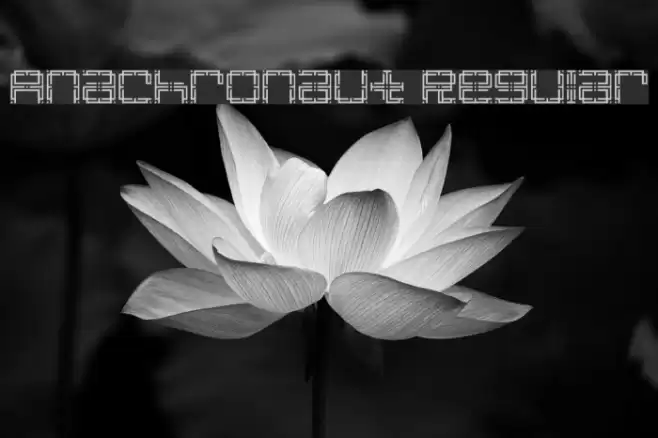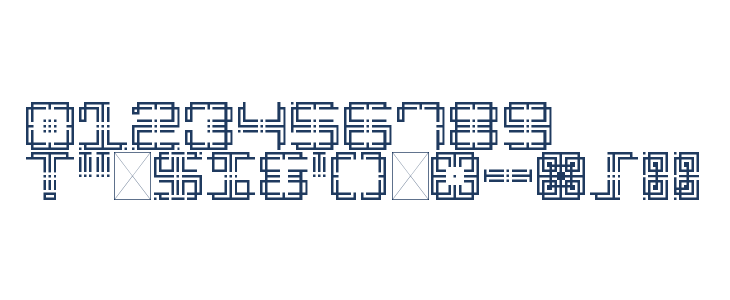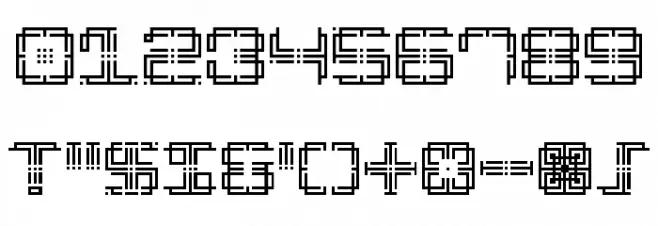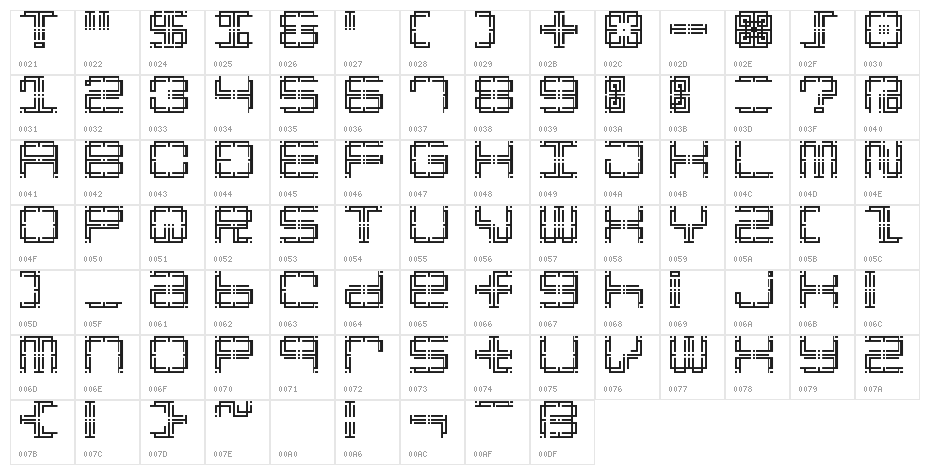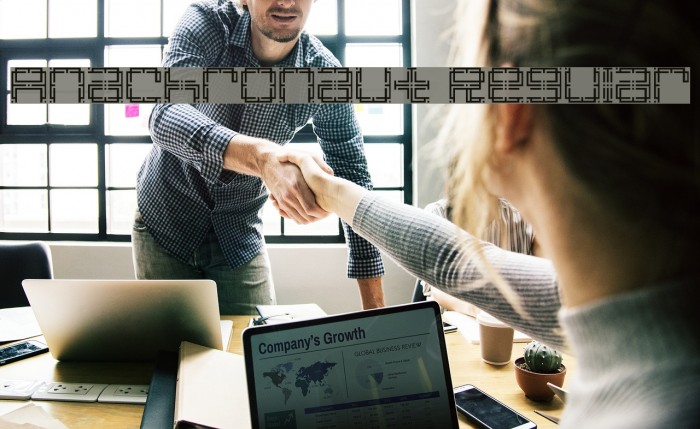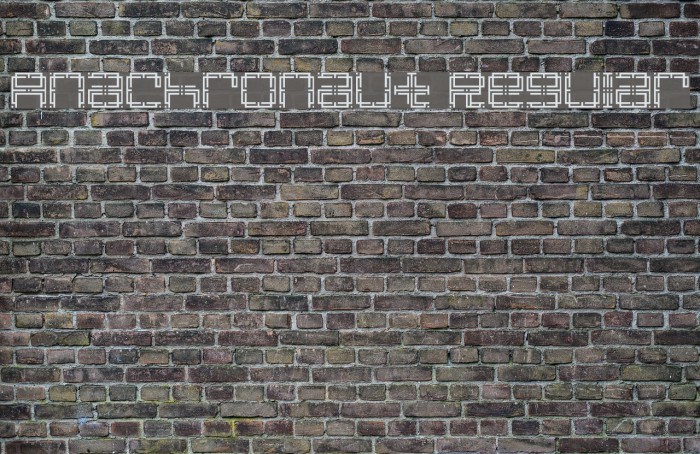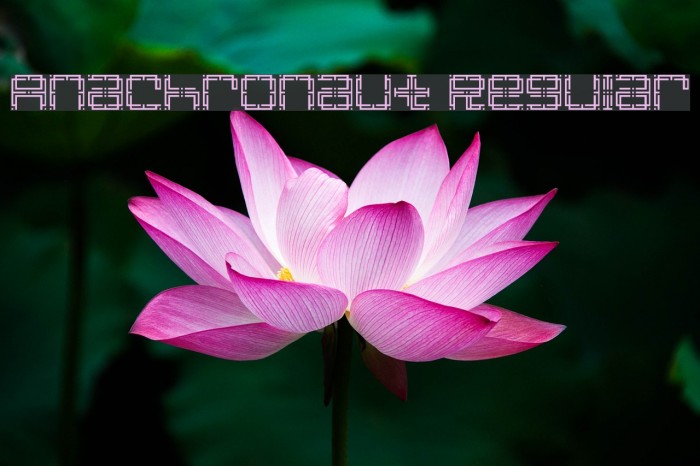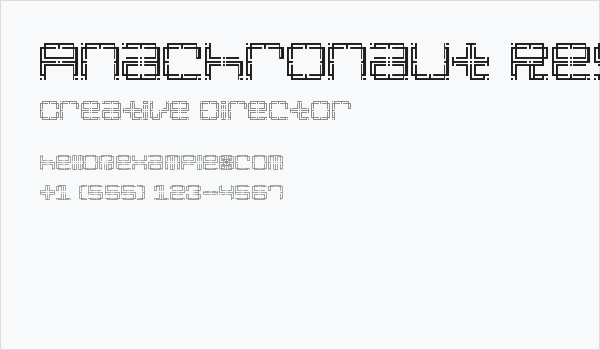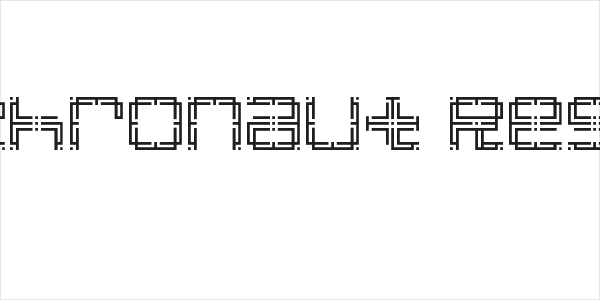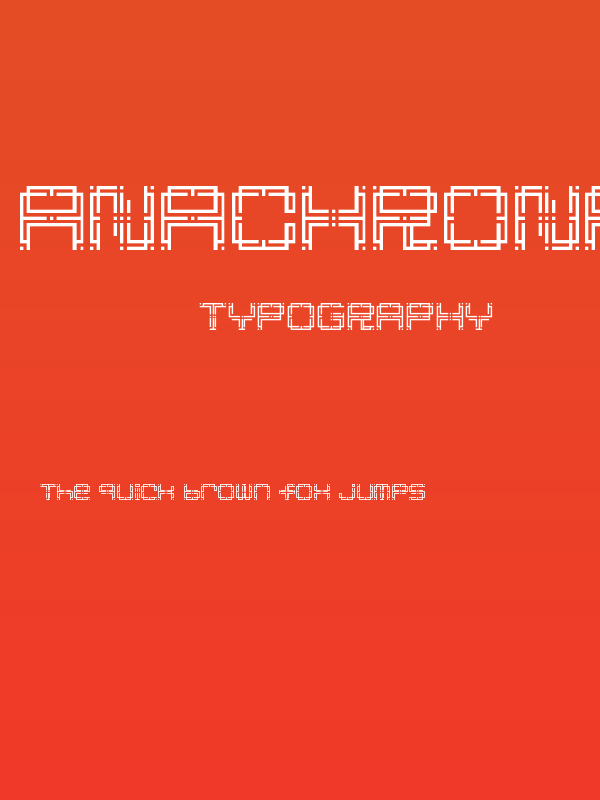
Anachronaut Regular Font
Anachronaut Regular Description
This font features a futuristic and geometric design, characterized by its intricate line work and maze-like patterns within each character. The letters are constructed with a series of parallel lines and right angles, giving it a highly technical and digital appearance. The uppercase and lowercase letters maintain a consistent style, with the uppercase being slightly more pronounced. The numerals and special characters follow the same design principles, ensuring uniformity across the typeface. This font's unique style makes it stand out, ideal for projects that require a modern and tech-savvy aesthetic.
A futuristic, geometric font with intricate line patterns and a digital aesthetic from Uncategorized fonts.
- Proposed Projects: Ideal for tech-related branding, video game design, sci-fi movie posters, and digital art projects.